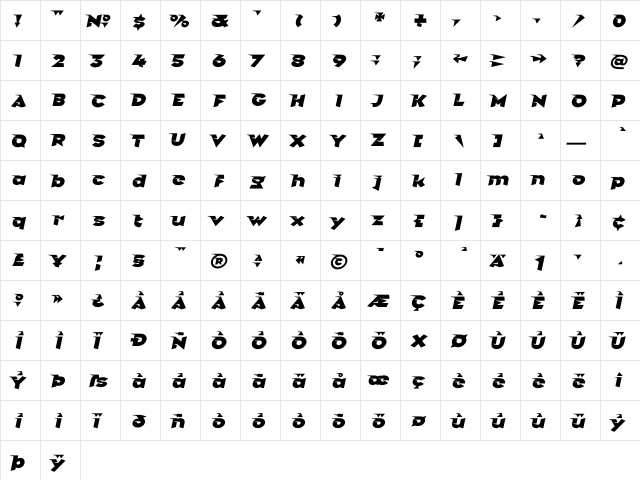
Griffin Italic
Design Context for Griffin Typeface
Griffin is a composed and adaptable typeface that performs quietly and consistently across a wide range of design contexts. The slanted form adds forward momentum and visual energy.
Pro Tip: Try Griffin for annotation and caption copy alongside an upright companion — the contrast in angle creates a dynamic but ordered typographic system.